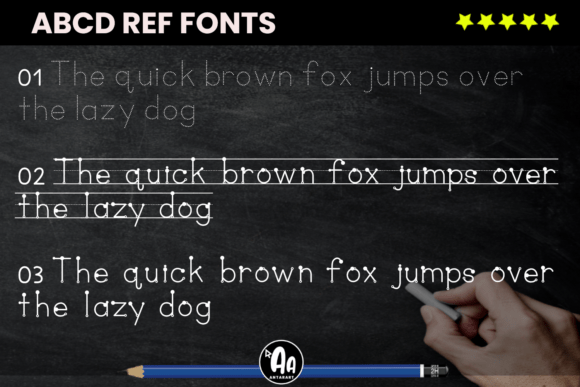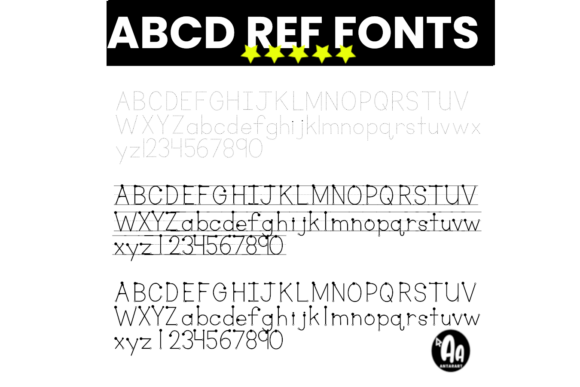
Introduction to Abcd Ref Tracing Lined Font
Tracing Fonts Pack with Lines & Dots.
Help your students build strong handwriting skills and master the alphabet through fun with this tracing Fonts Pack This pack includes 3 unique styles (dotted font, lined fonts with beginning Dots, and unlined fonts with beginning Dots) You can use these tracing fonts to : -Engage students with multiple tracing font styles that support early writing, letter recognition, and pre-writing readiness.
Key Features of Abcd Ref Tracing Lined Font